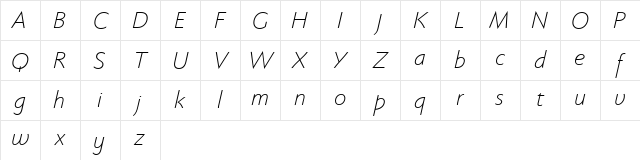
Faber Sans Pro reduced 46 Leicht Kursiv
Style: 46 Leicht Kursiv
Foundry: Ingo Zimmermann ingoFont Augsburg
Designer: Ingo Zimmermann
Design Context for Faber Sans Pro reduced
Faber Sans Pro reduced is a composed and adaptable typeface that performs quietly and consistently across a wide range of design contexts. The slanted form adds forward momentum and visual energy.
Pro Tip: Use Faber Sans Pro reduced for emphasis, pull quotes, and subheadings where its slanted energy can add rhythm to the layout.
Who designed the Faber Sans Pro reduced 46 Leicht Kursiv font?